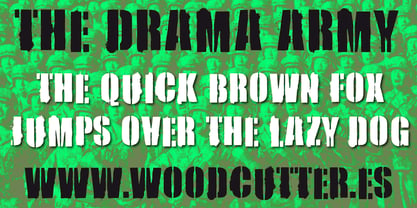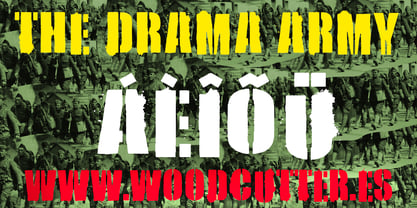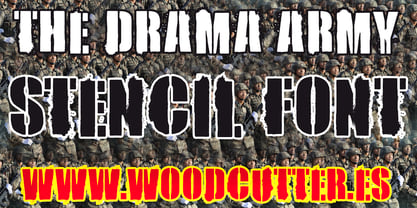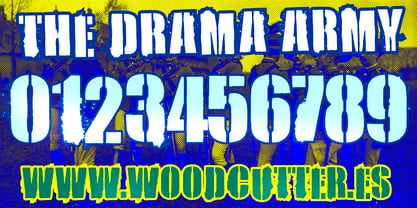
The Drama Army
by Woodcutter
The The Drama Army Font Family was designed by Jordi Manero and published by Woodcutter. The Drama Army contains 1 styles. More about this family
“The Drama Army” is an uppercase font with accents, inspired by traditional military stencil lettering, but pushed into a realm of dirt, wear, and visual chaos. Each character features imperfect lines, misaligned cuts, and unstable shapes, as if hastily stamped onto a rough surface, corroded by time and the elements. The letter texture suggests visual noise, like ink soaked with rust and grit.
Unlike clean and symmetrical stencil fonts, “The Drama Army” breaks the mold to deliver a more chaotic, raw, and expressive version of military style. Letters are slightly tilted, shifted off-axis, or misaligned, creating a sense of urgency and visual tension. This font is perfect for rebellious designs, zine covers, artistic projects, protest posters, or any graphic work with a subversive, countercultural message.
“The Drama Army” merges the iconic power of stencil type with the disorder of grunge, embodying a mood of visual warfare, street drama, and graphic struggle. It’s ideal when your message needs to shout — not whisper.